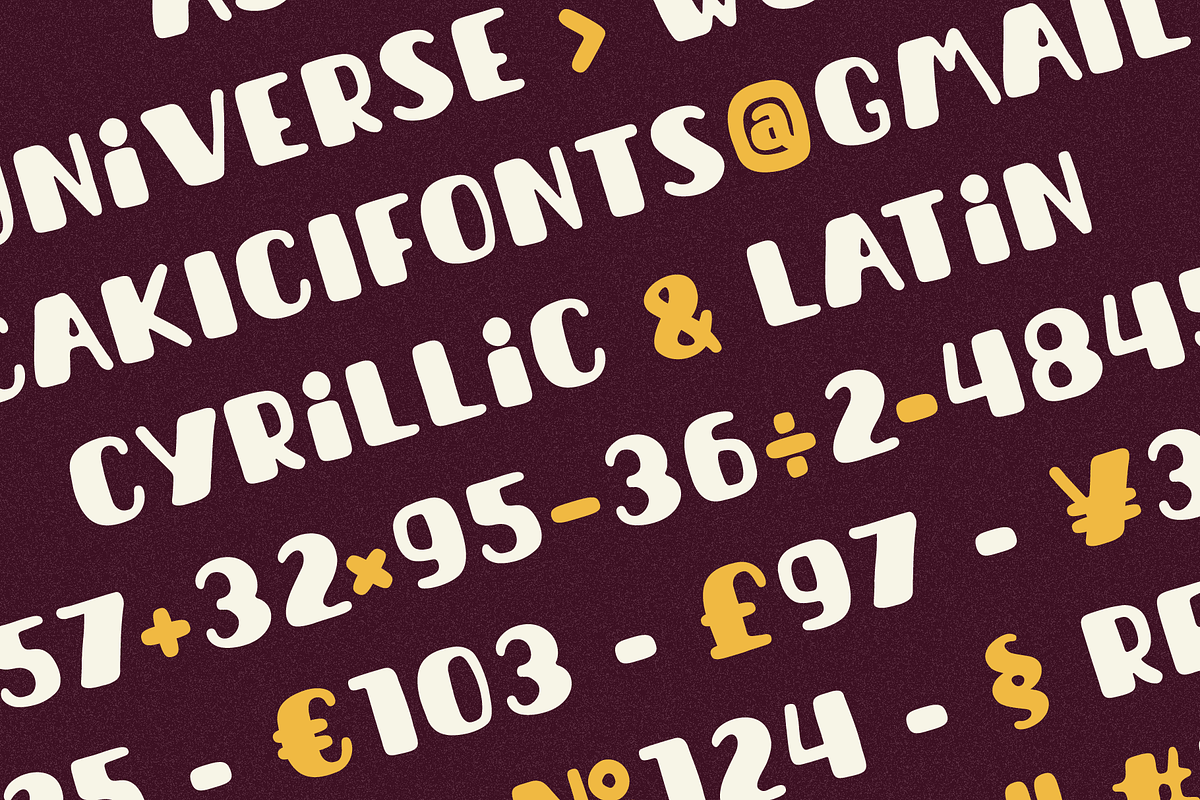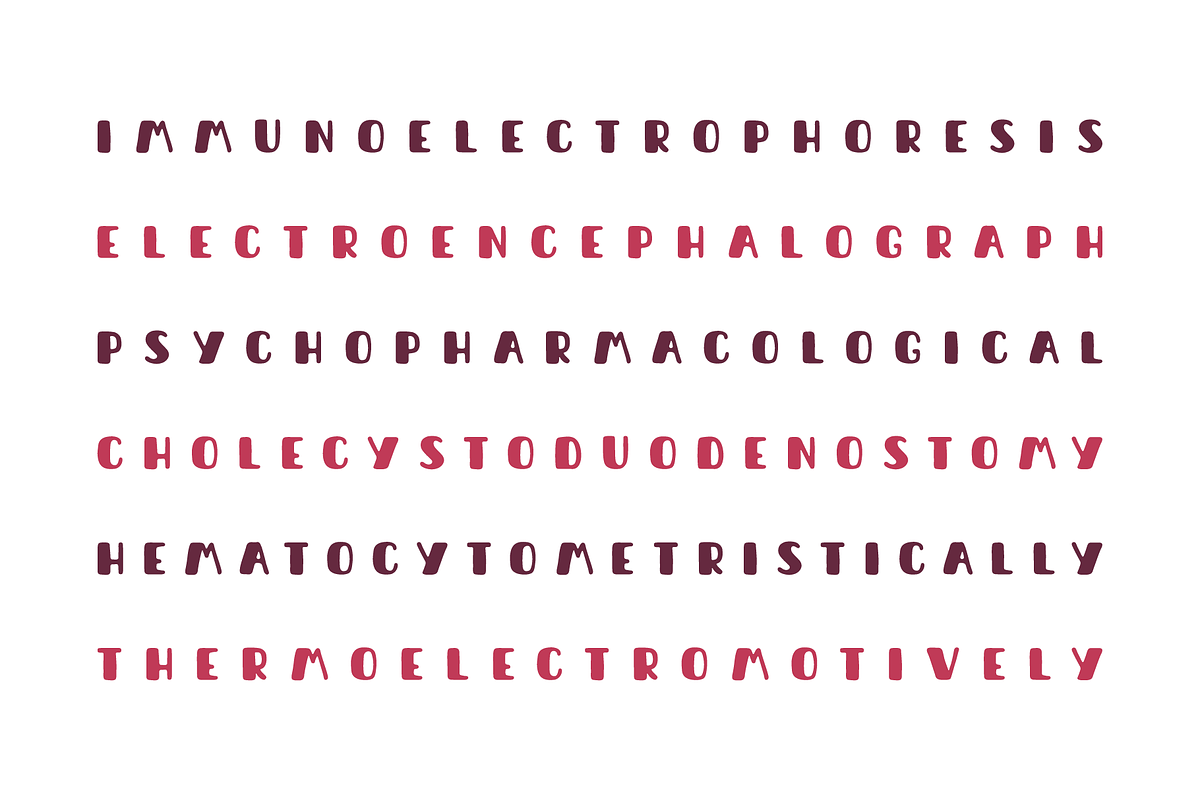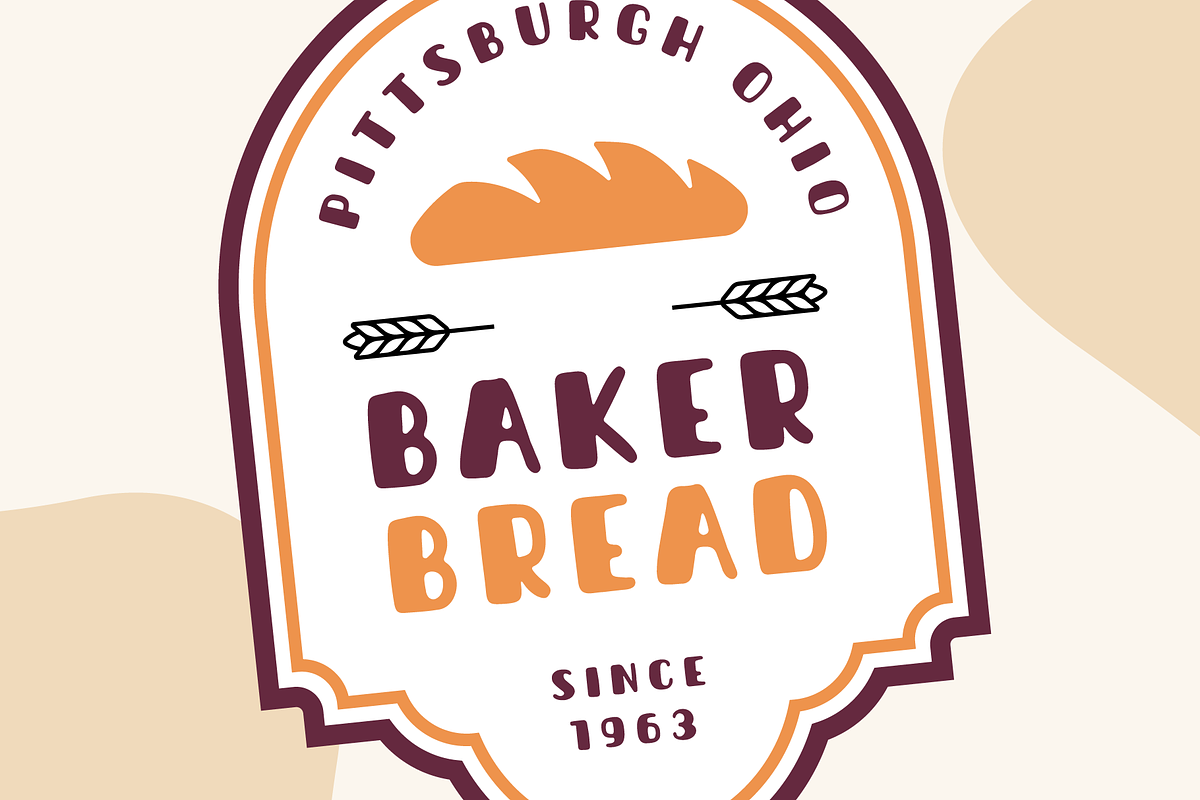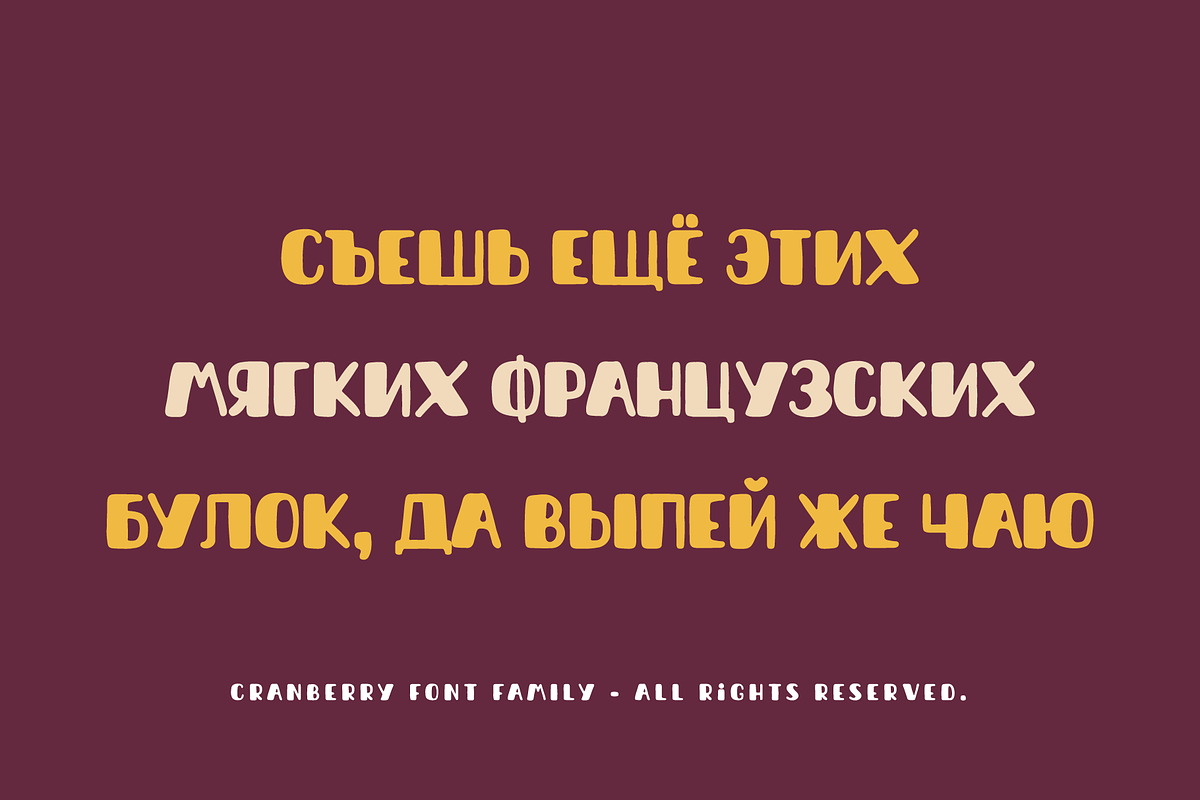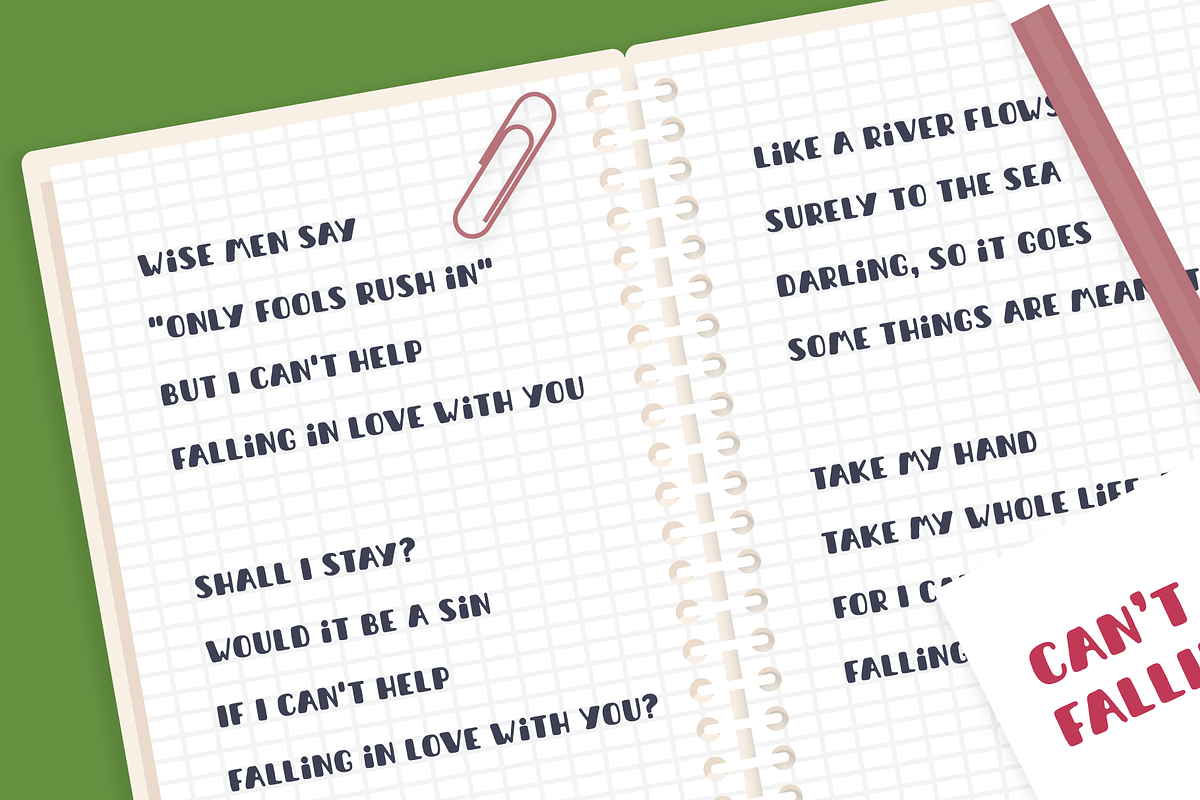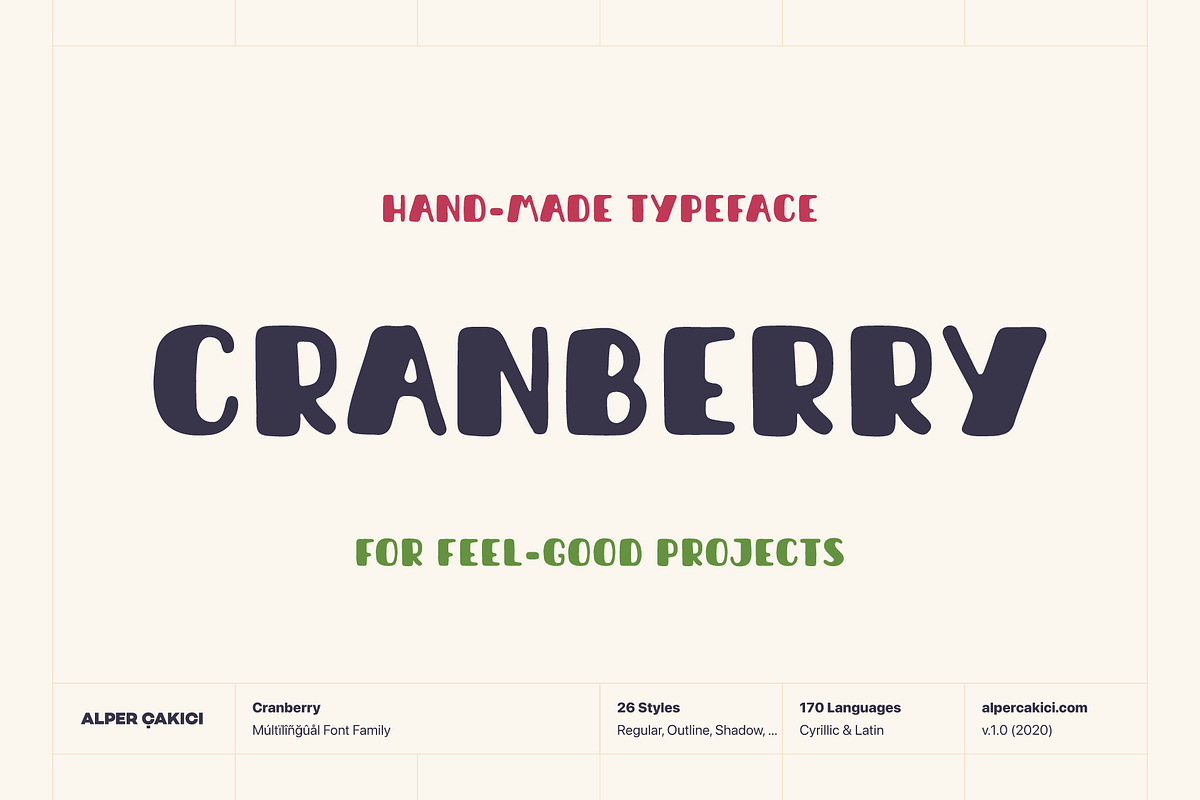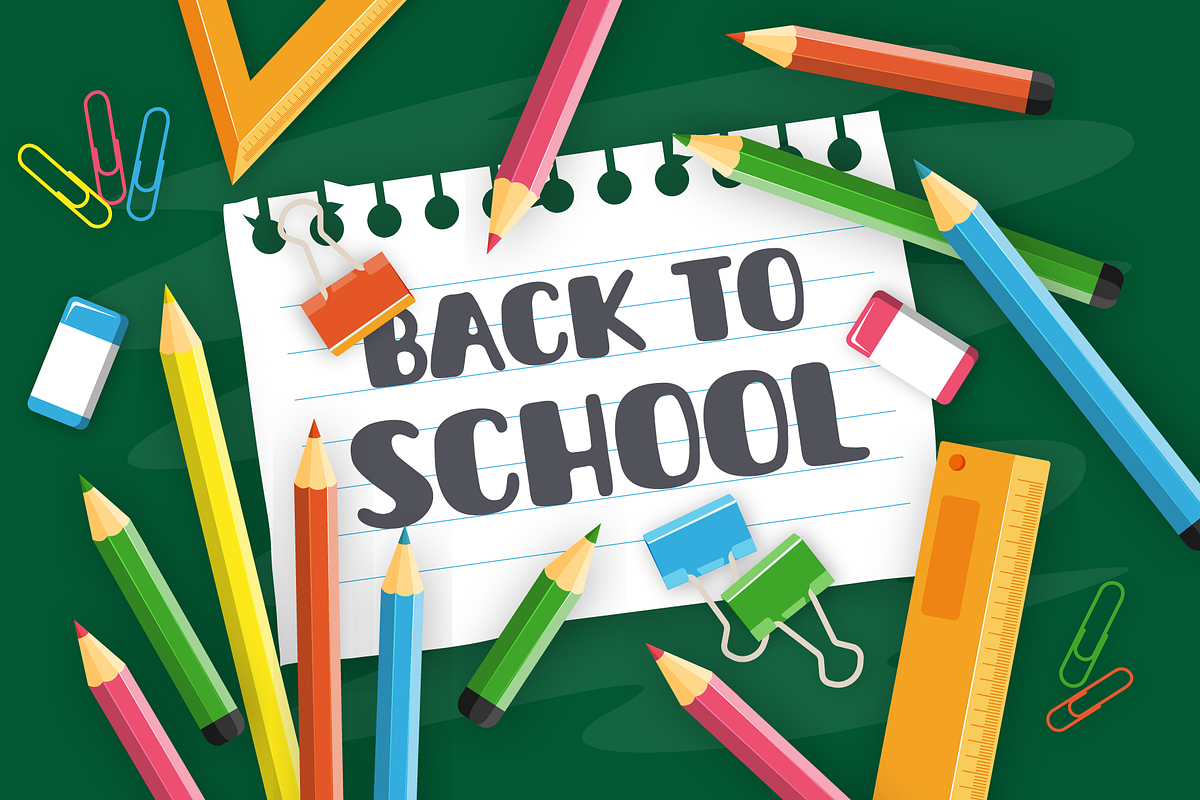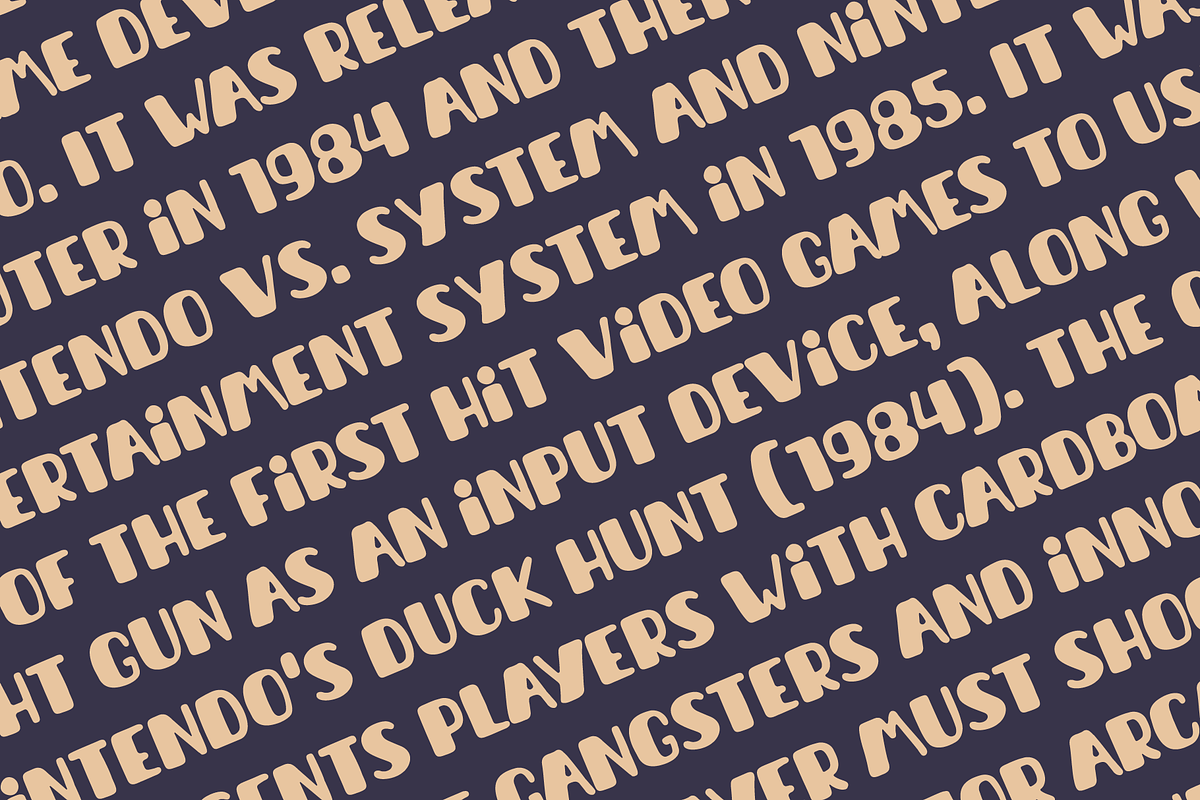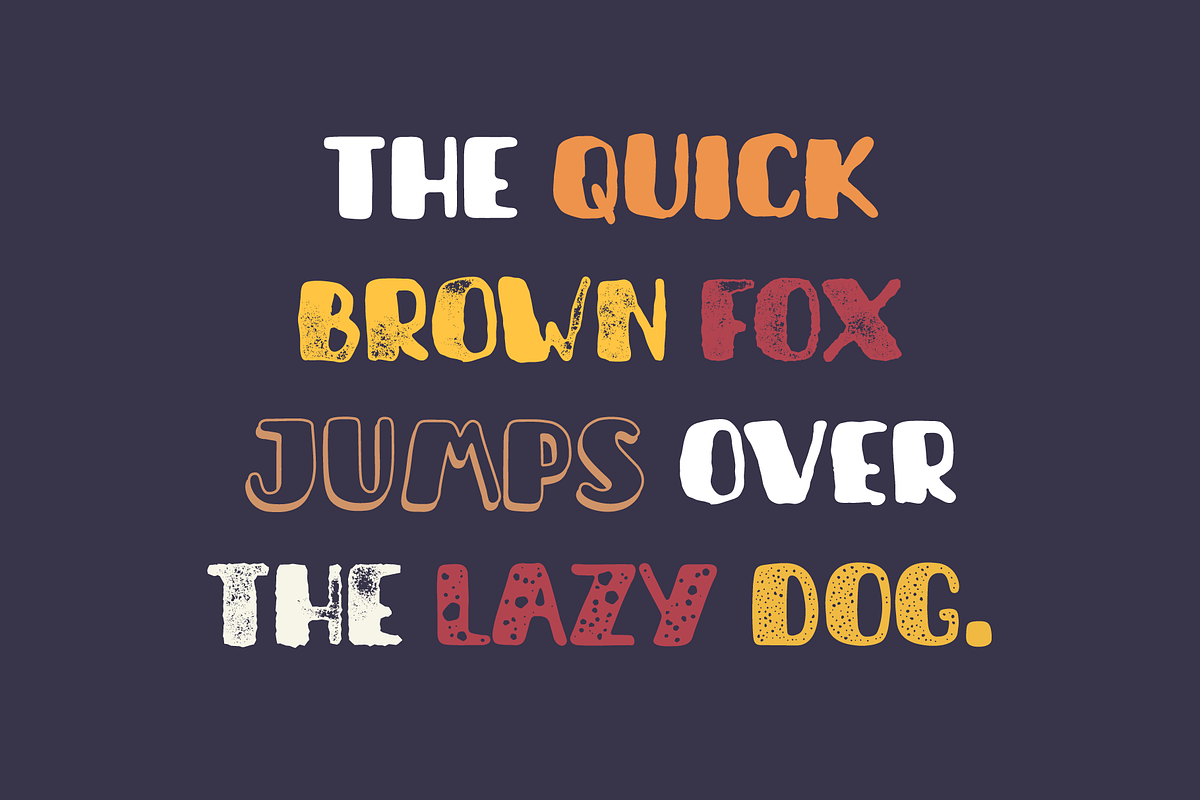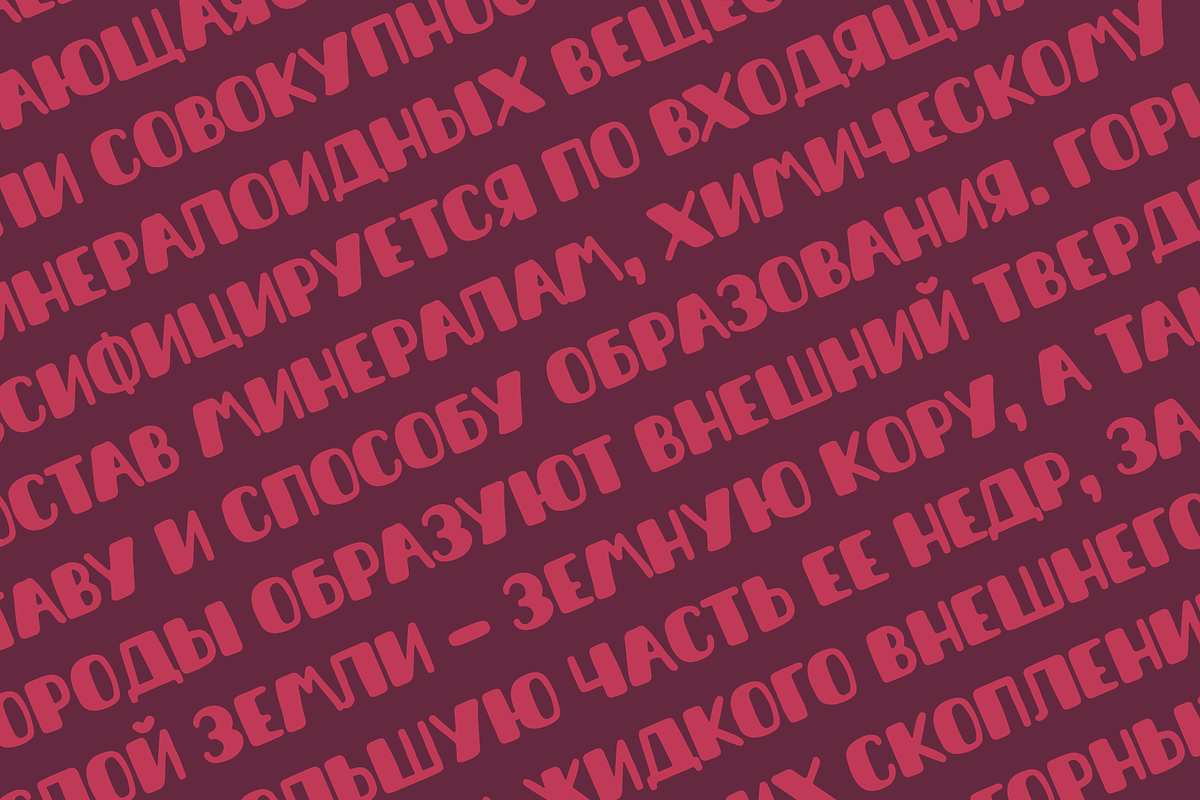
Cranberry Playful Handmade Typeface
Cranberry is a playful handmade display typeface full of warmth, charm, and personality. Inspired by hand-painted signs, children's books, and casual brush lettering, it features soft, rounded shapes with intentionally imperfect contours that create an authentic handcrafted appearance. Every character feels friendly and inviting, making your designs look approachable rather than mechanical.
With 26 carefully crafted styles, Cranberry offers excellent creative flexibility. Whether you're designing cheerful logos, product packaging, book covers, posters, greeting cards, social media graphics, branding projects, or playful headlines, the family provides plenty of options to match your creative vision.
Its bold forms maintain excellent readability while preserving a natural handmade texture. The subtle irregularities throughout the letterforms give designs a lively, organic feel without sacrificing clarity, making Cranberry equally suitable for both digital displays and high-quality print production.
Cranberry includes 357 glyphs and supports 170 Latin and Cyrillic-based languages, allowing designers to create multilingual projects with confidence. From English and most European languages to Ukrainian and many additional Latin-based languages, it is built for international use.
Optimized for both screen and print, Cranberry delivers consistent, eye-catching results across packaging, advertising, children's products, merchandise, editorial layouts, websites, mobile applications, and branding systems.
Whether you're creating fun branding, cozy packaging, whimsical invitations, colorful advertising, or memorable headlines, Cranberry brings handcrafted character and friendly energy to every design.
26 font styles
Handmade display typeface
Soft, rounded letterforms
Natural handcrafted appearance
Latin & Cyrillic support
170 supported languages
357 glyphs
Perfect for logos, branding, packaging, posters, children's books, social media, and headlines
Optimized for screen and print